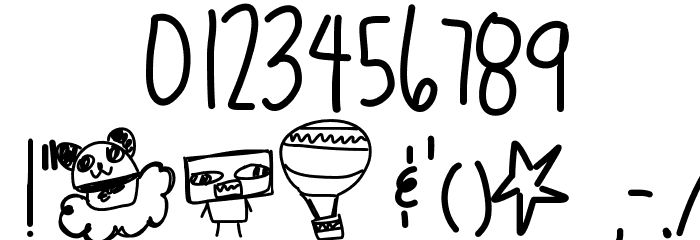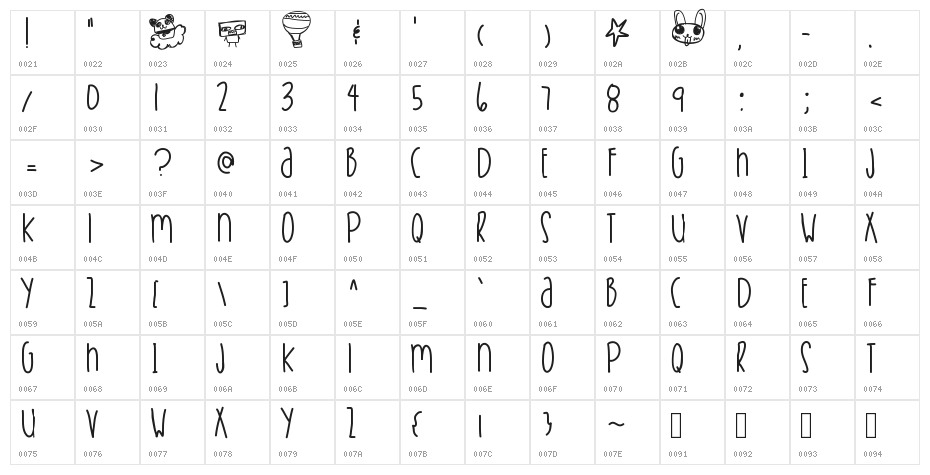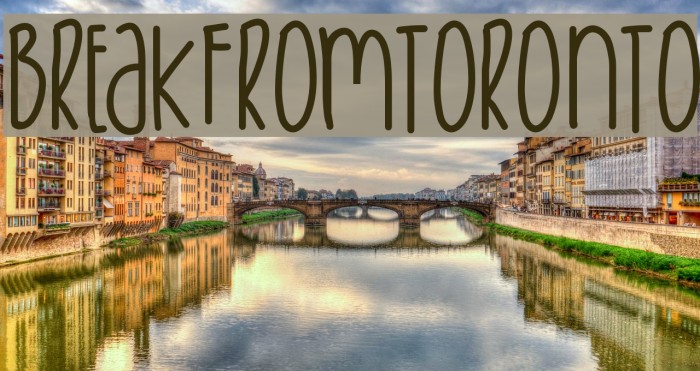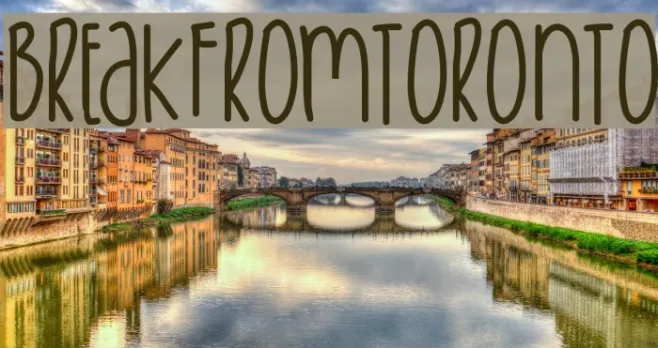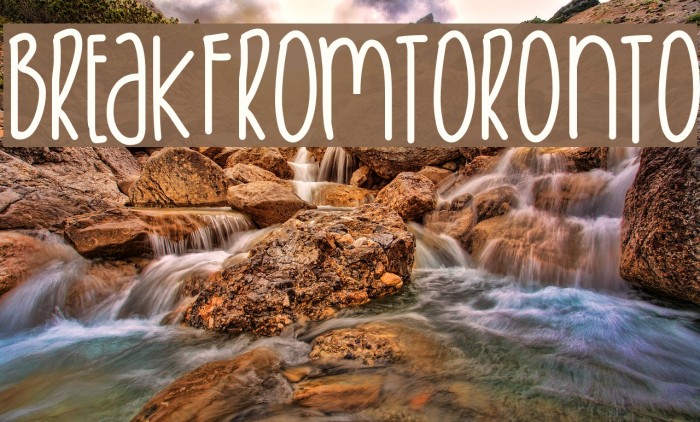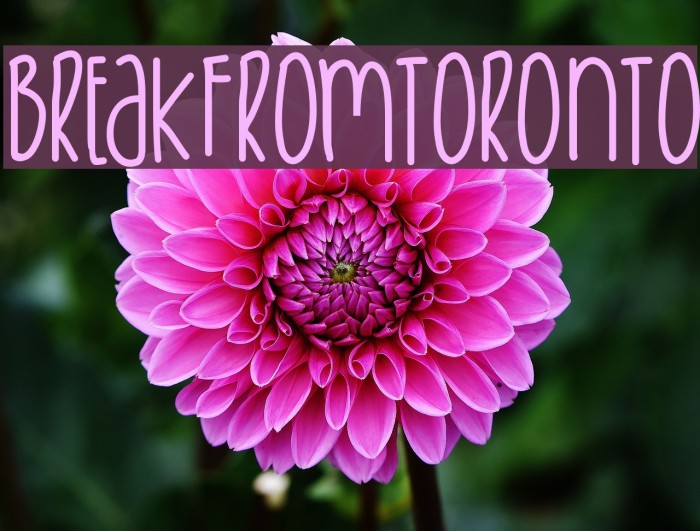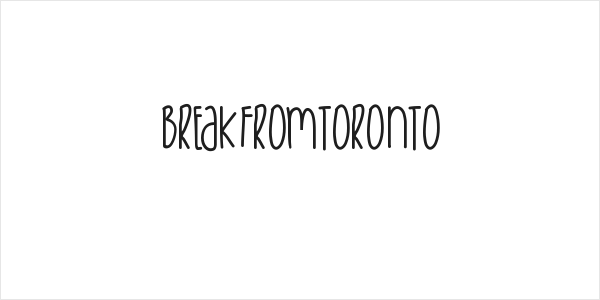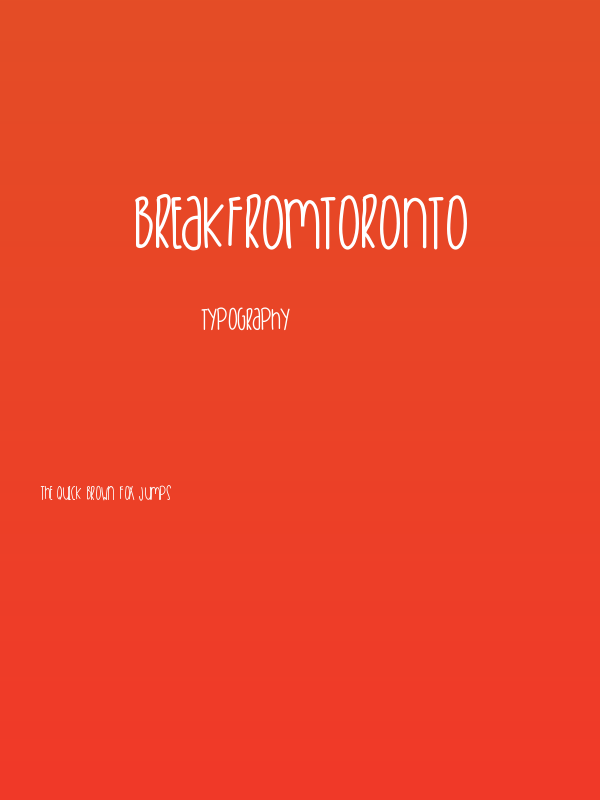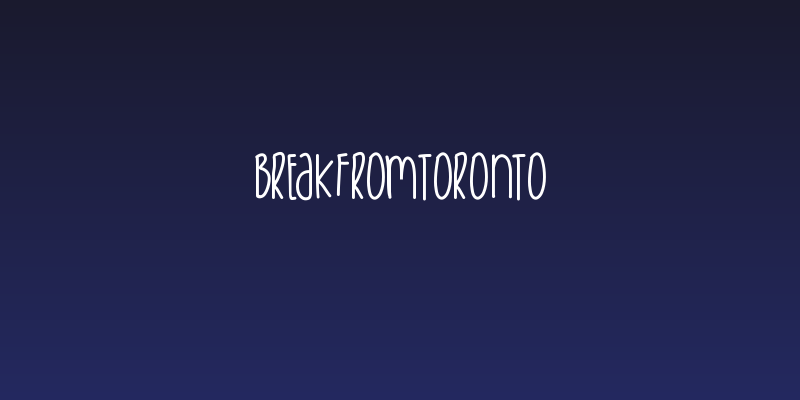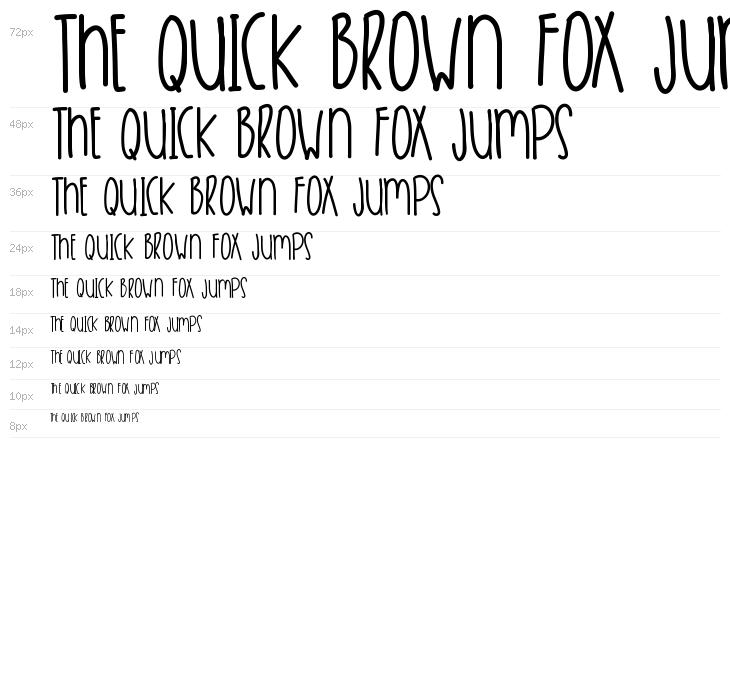
BreakFromToronto Font
BreakFromToronto Description
This playful and whimsical font features tall, narrow characters with a hand-drawn aesthetic. The strokes are consistent in width, giving it a monoline appearance, while the rounded edges add a friendly and approachable feel. The uppercase and lowercase letters maintain a uniform height, contributing to a cohesive look. Numbers and special characters are designed with the same playful style, making them blend seamlessly with the alphabet. The overall design is casual and informal, perfect for projects that require a touch of fun and creativity.